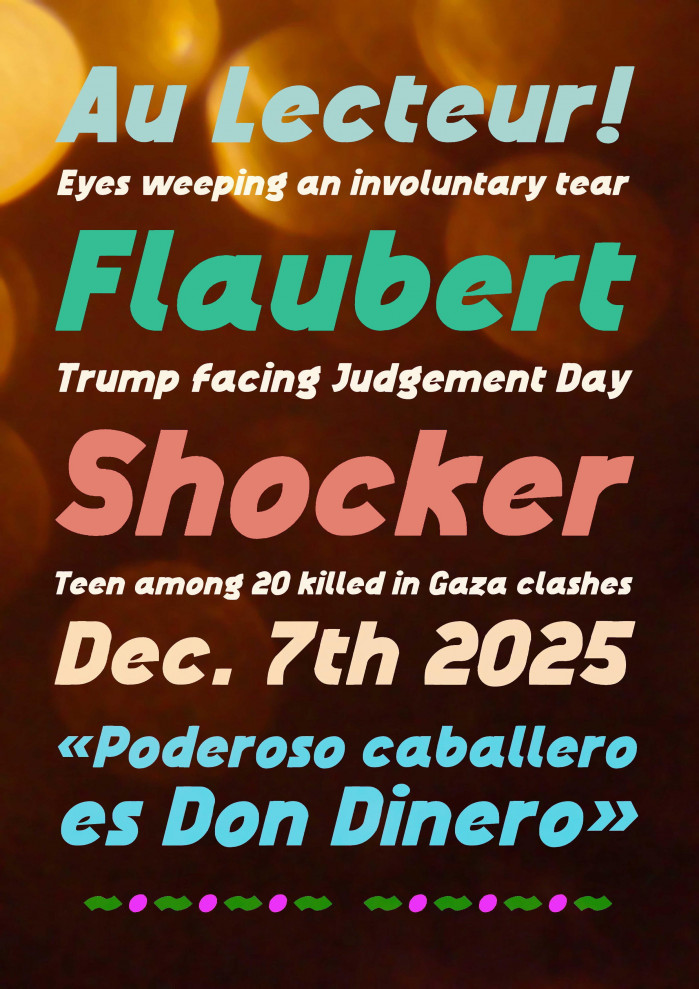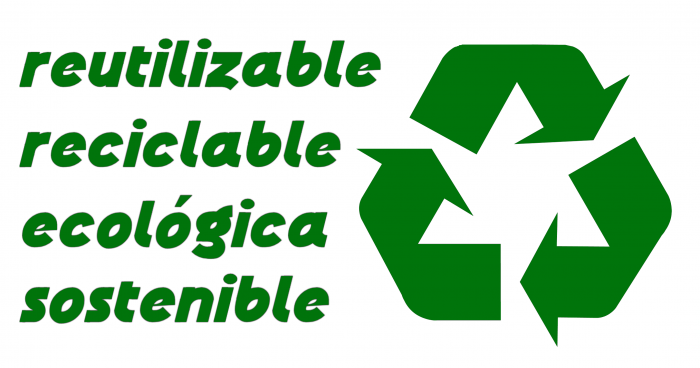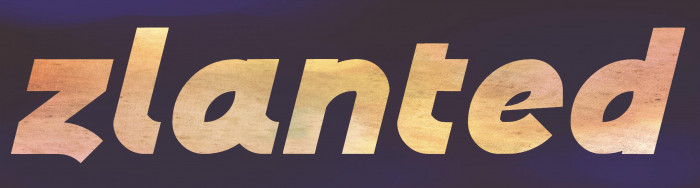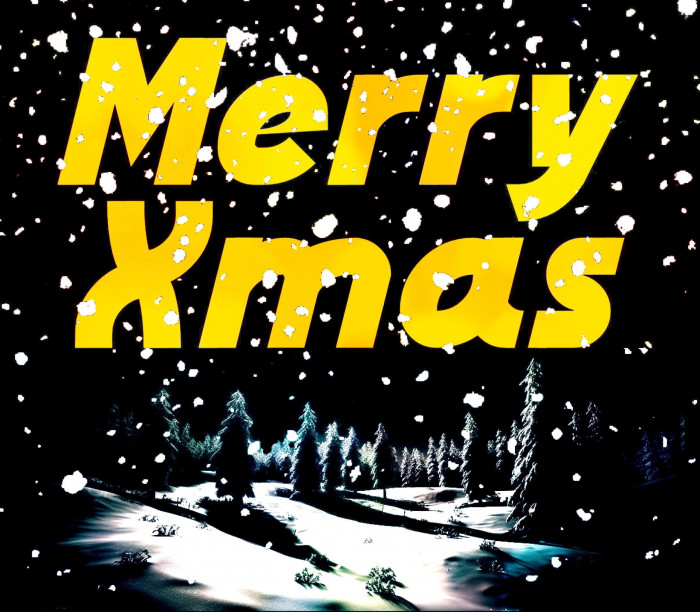
• This italic was more difficult to build than I espected (especially the glyphs K, M, S, X, g, k, x, 2, 5, 6, 8, ß and a few others). There are still shapes that are very hard to achieve using the current FontStruct's tools... but nothing is completely impossible if you dedicate the time to it, the results are often surprising. So it also took me much more time to complete the entire character set, but I'm happy about the final aspect of the font: it looks curiously forceful, positive and fresh at the same time, and I like it, despite not being 100% happy with some glyphs. Kerning isn't finished. Suggestions are welcome, folks. This is my 2024 font for Xmas: Happy holidays to you and yours, dear Rob Meek and all the FontStructors wherever you are!
This italic was more difficult to build than I espected (especially the glyphs K, M, S, X, g, k, x, 2, 5, 6, 8, ß and a few others). There are still shapes that are very hard to achieve using the current FontStruct's tools... but nothing is completely impossible if you dedicate the time to it, the results are often surprising. So it also took me much more time to complete the entire character set, but I'm happy about the final aspect of the font: it looks curiously forceful, positive and fresh at the same time, and I like it, despite not being 100% happy with some glyphs. Kerning isn't finished. Suggestions are welcome, folks. This is my 2024 font for Xmas: Happy holidays to you and yours, dear Rob Meek and all the FontStructors wherever you are!
Very nice, I like how you solved the e.
What a gem!
Vow! What a fantastic slanted font! Building an Italic set with Fontstruct is very challenging, but you pulled it off. Not every letter shape is perfect, but they are charming and work well together. The g, y, and z are awesome. Yet the other glyphs are not far behind. Brilliant work. 10/10
This looks pretty nice, although small edits via Glyphs would make it look better…
Wonderful: an italic fontstruction using curved bricks!
Masterpiece!!! Instant classic. I'm in awe you managed to pull this off and keep the slant so consistent. Lowercase g is especially impressive.
nice!
Very Cool!